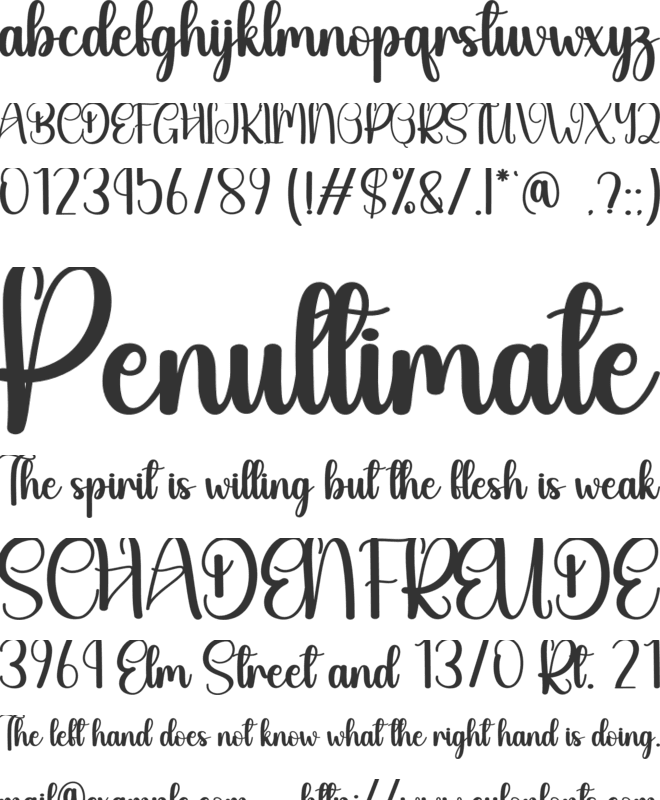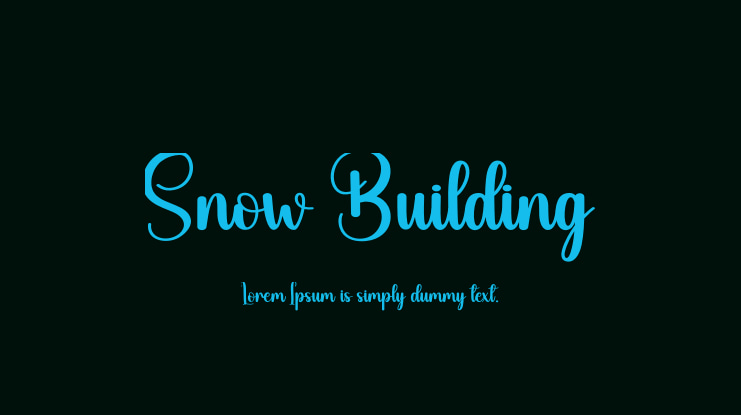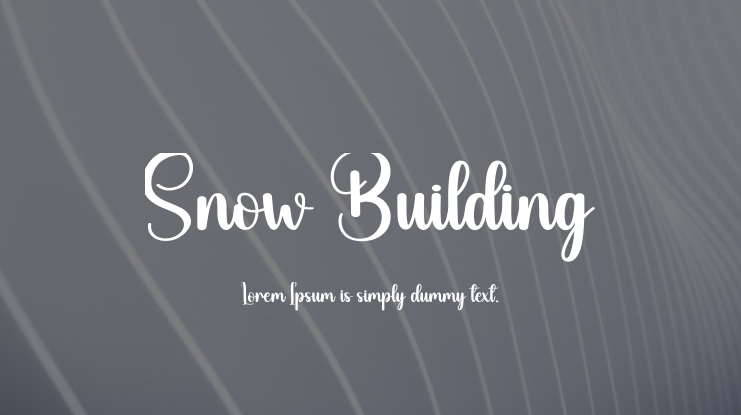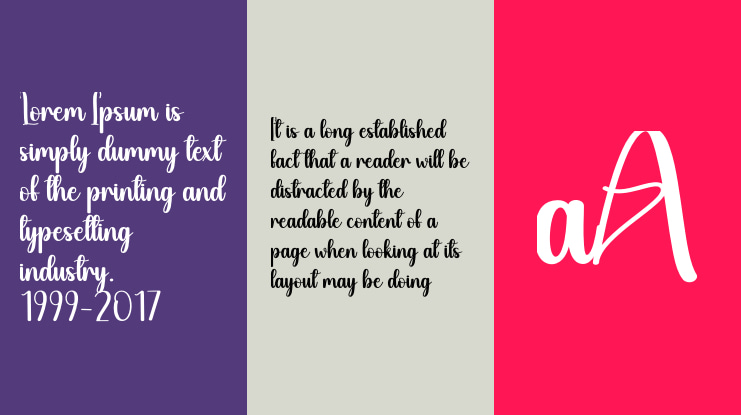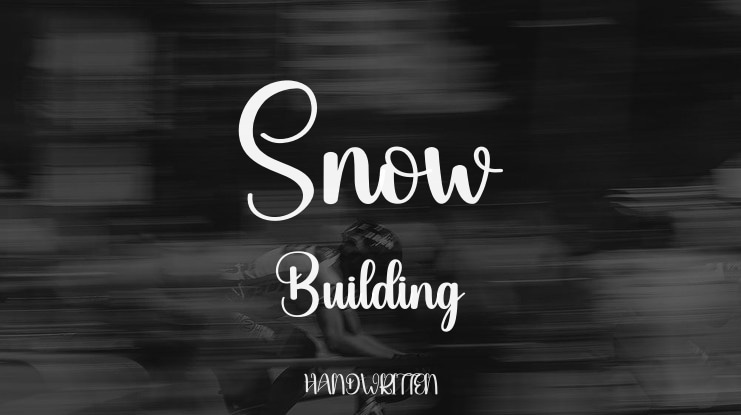
Our latest style fonts are ideal for wall displays, wedding invitations, social media logos, advertisements, product packaging, designs, labels, photography, watermarks, stationery, and any project that demands a touch of elegant handwriting.